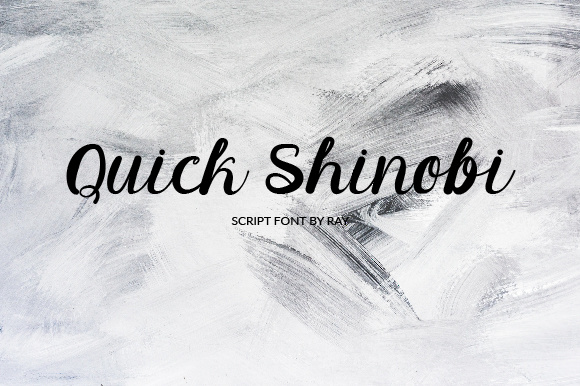
Quick Shinobi Font
About Quick Shinobi Font
Quick Shinobi is a modern script font. Every single letter has been carefully crafted to make your text look beautiful. With it’s modern script style, Quick Shinobi is perfect for many different projects such as: photography, watermarks, quotes, blog headers, posters and much more!